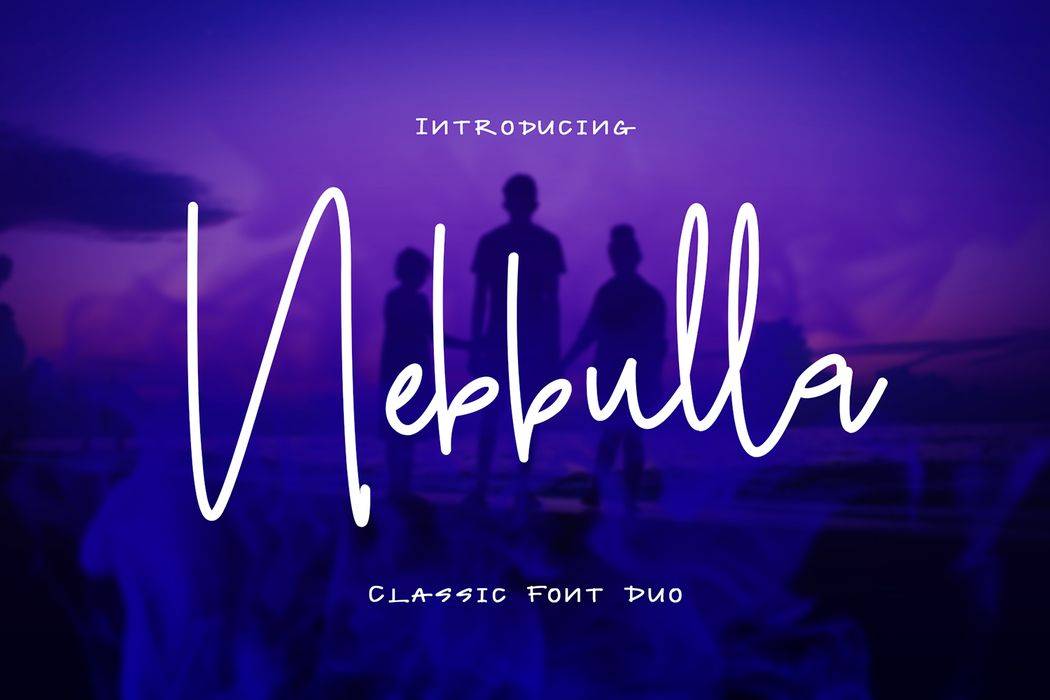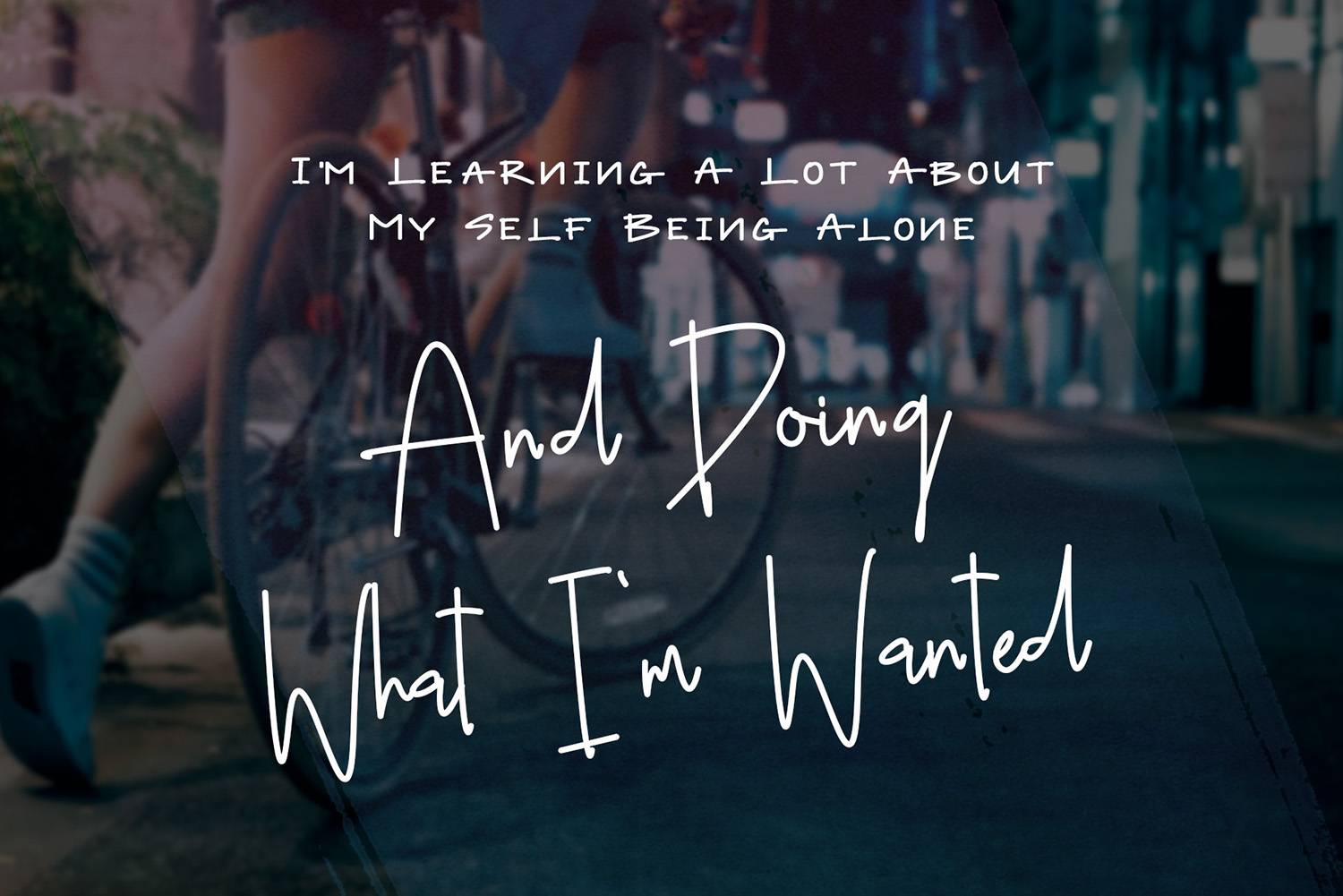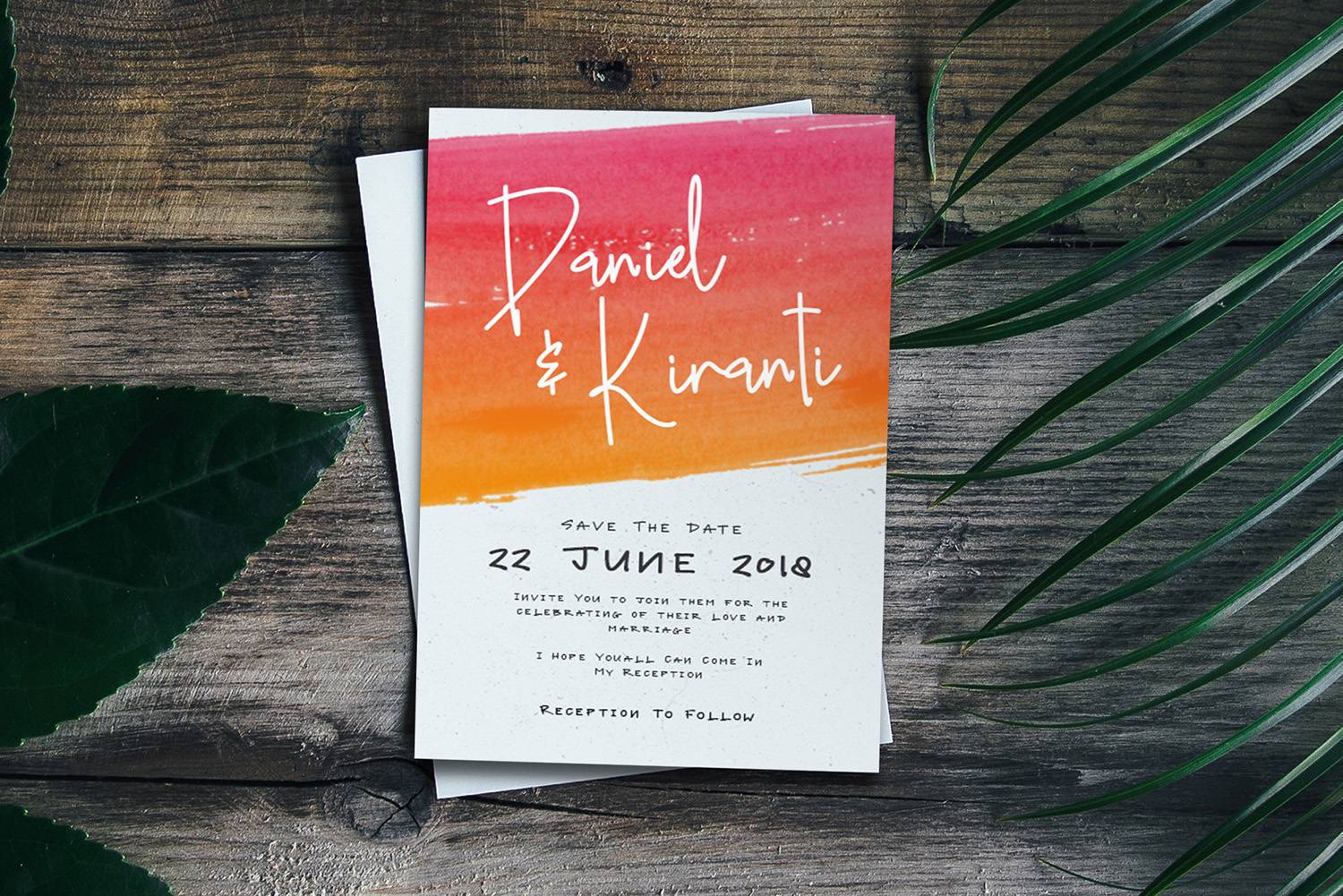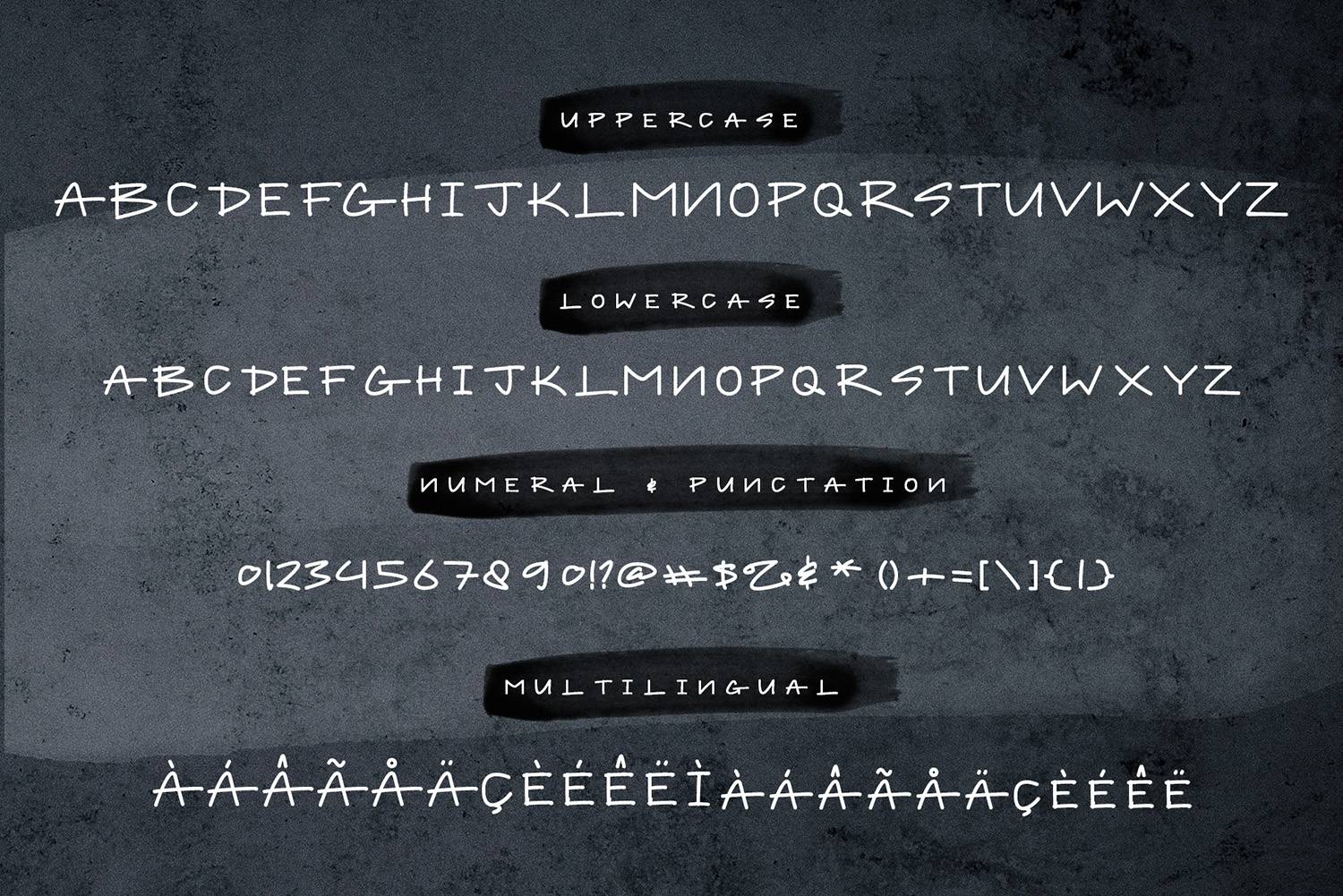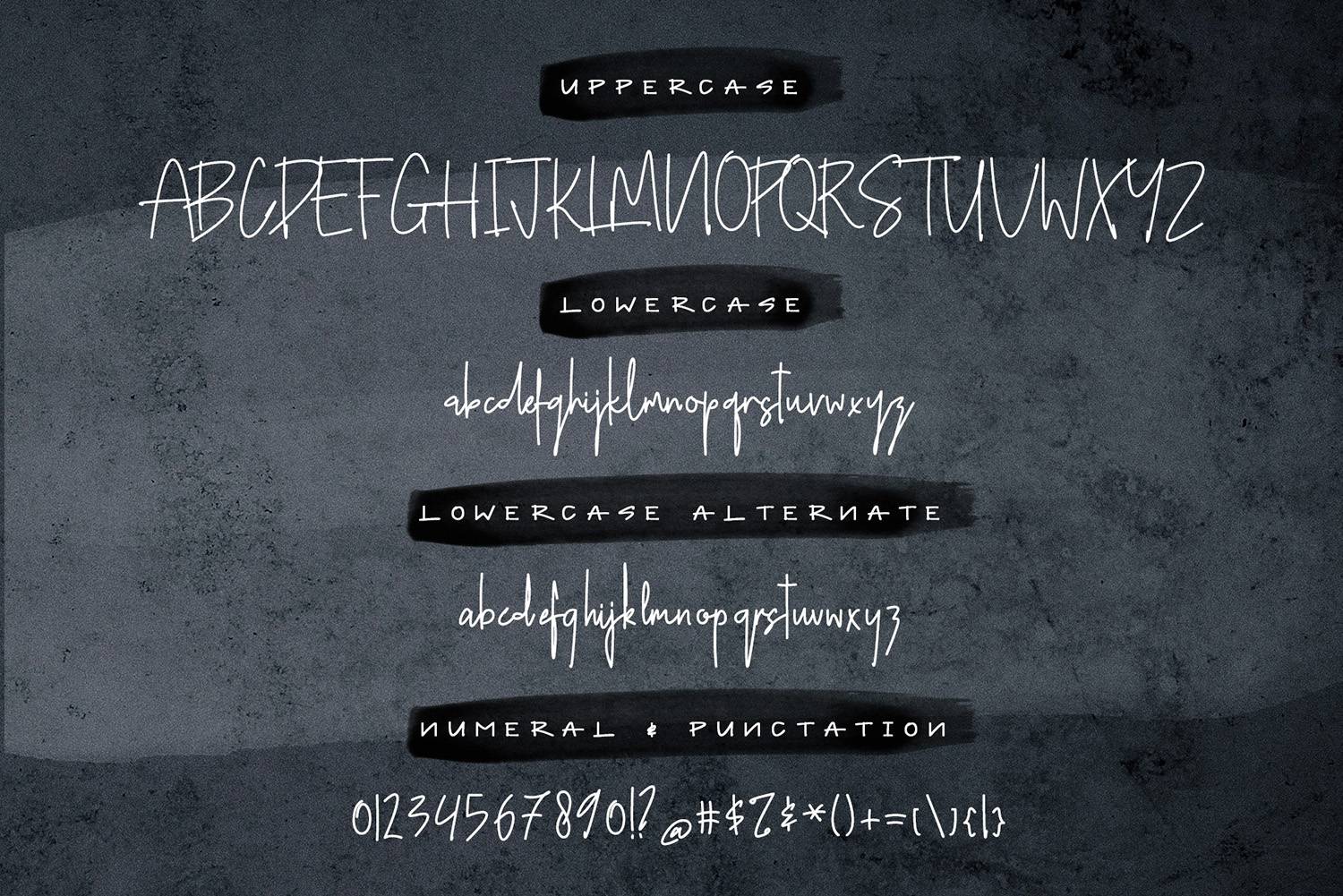
Nebbulla Font Duo is a playful and modern handwritten script paired with a tall, casual uppercase style that adds character and dynamism. Its thin, irregular strokes and slightly quirky letterforms give it a personal and energetic feel, making it perfect for creative branding, invitations, and stylish social media graphics. This font duo works well when you want to convey a friendly yet unique personality in your designs.
Nebbulla Font Duo
About Nebbulla Font Duo
| Font family | Nebbulla Font Duo |
| Designer | Ahamd Khaidir |